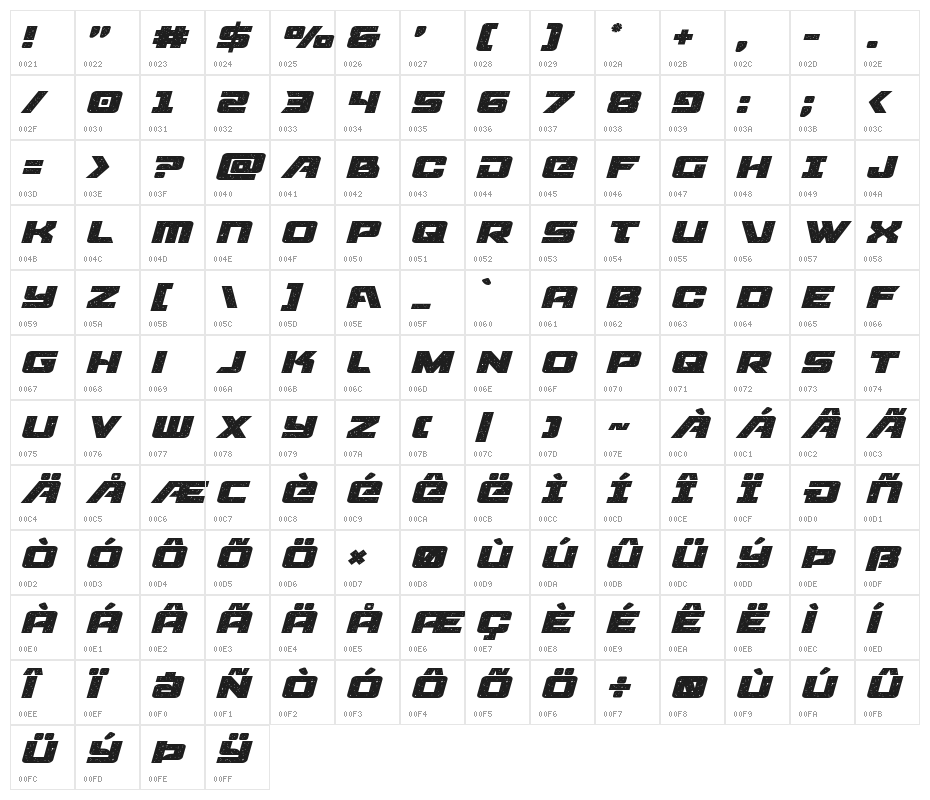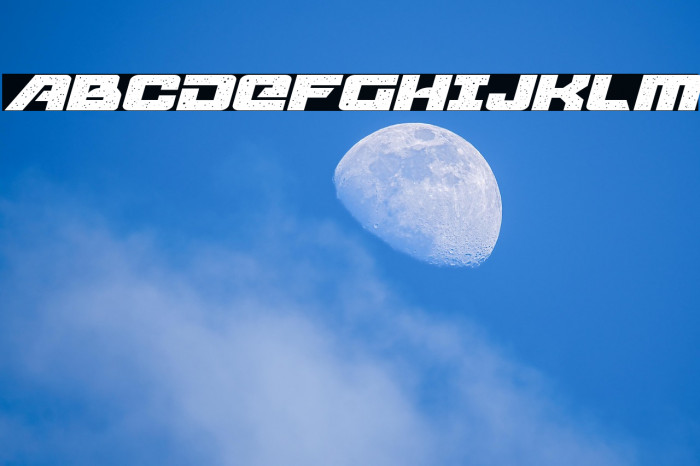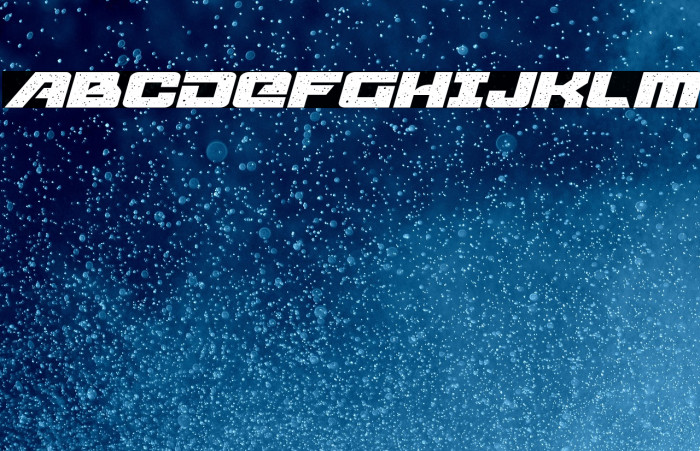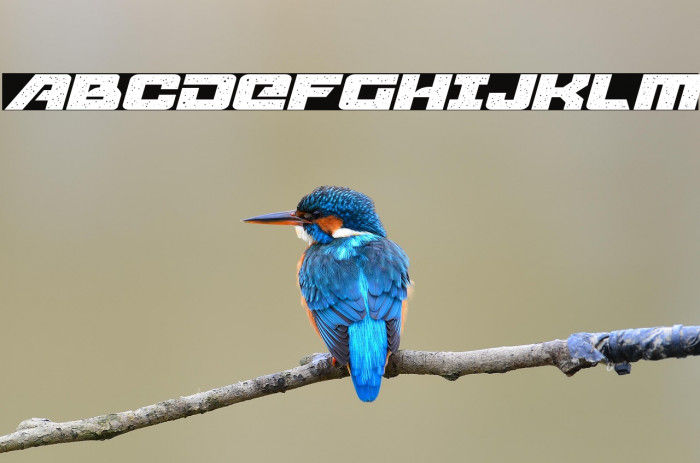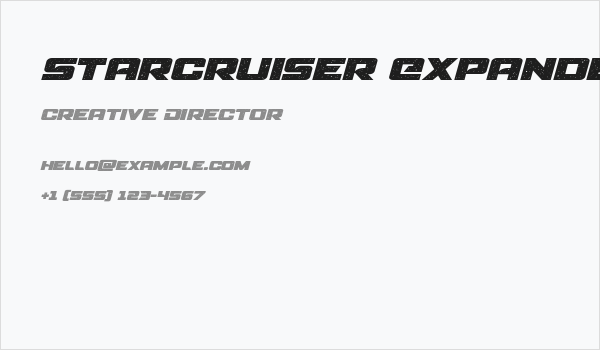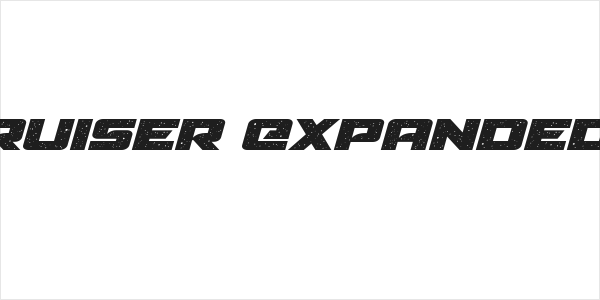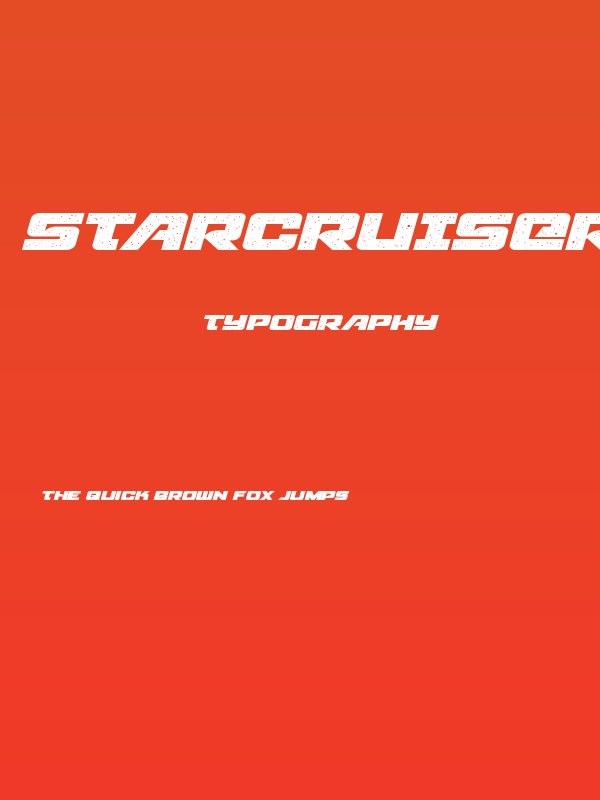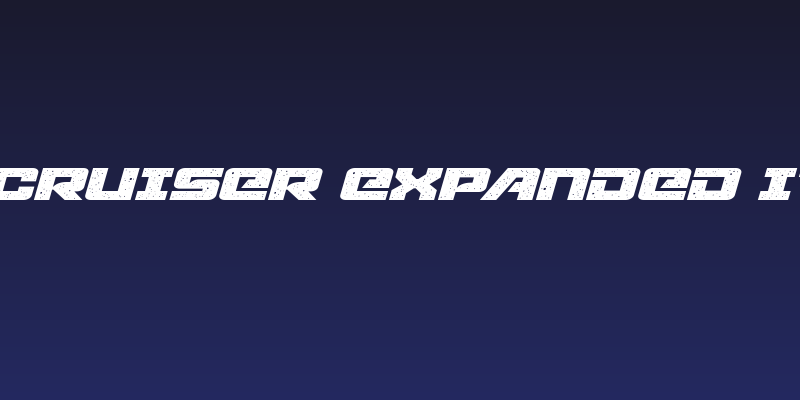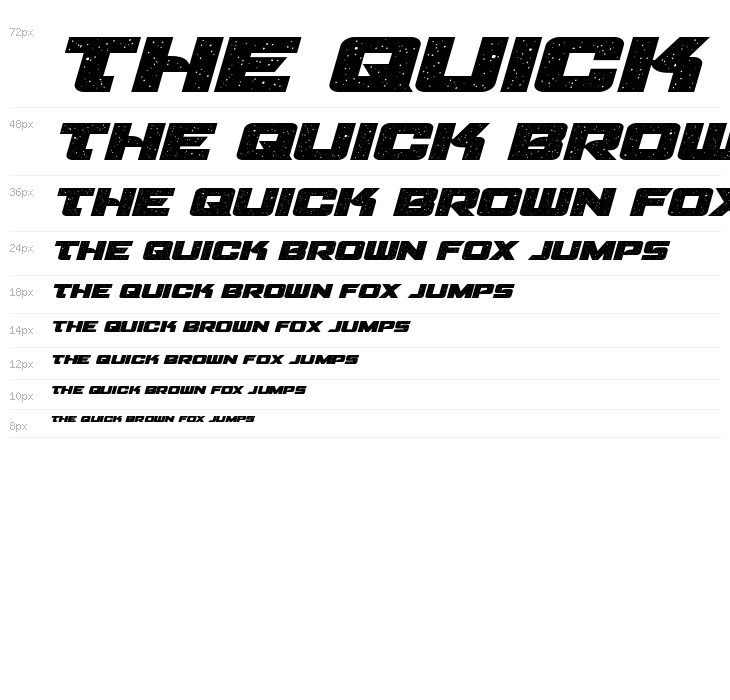
Starcruiser Expanded Italic Font
Starcruiser Expanded Italic Description
This font features a futuristic and bold design with an expanded width and italic slant, giving it a dynamic and forward-moving appearance. The characters are constructed with a blocky, geometric style, incorporating sharp angles and straight lines. The texture includes a starry pattern, adding a cosmic or sci-fi element to the overall look. The uppercase and lowercase letters maintain a consistent style, with numerals and special characters following the same design principles. This font is visually striking and ideal for projects that require a modern and space-themed aesthetic.
| Proposed Projects | Ideal for sci-fi movie posters, video game titles, space-themed event flyers, and futuristic branding. |